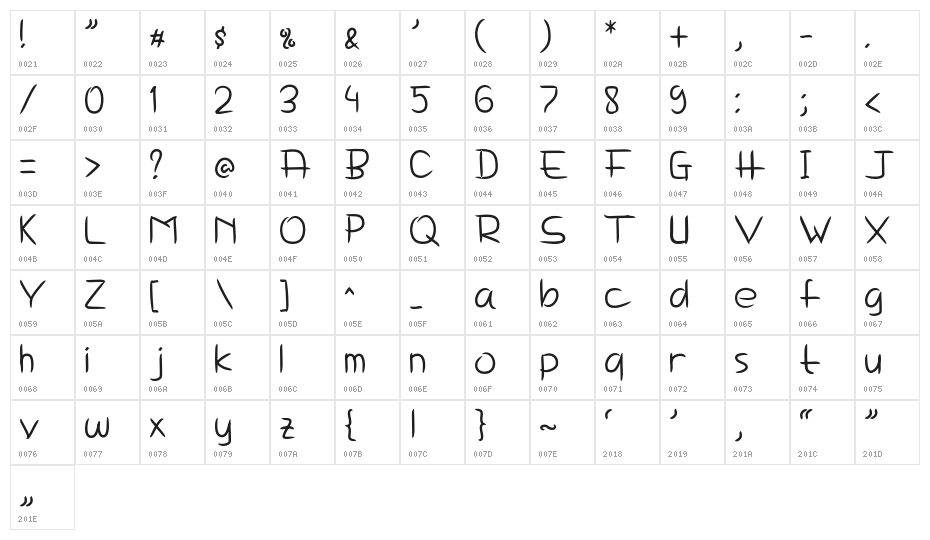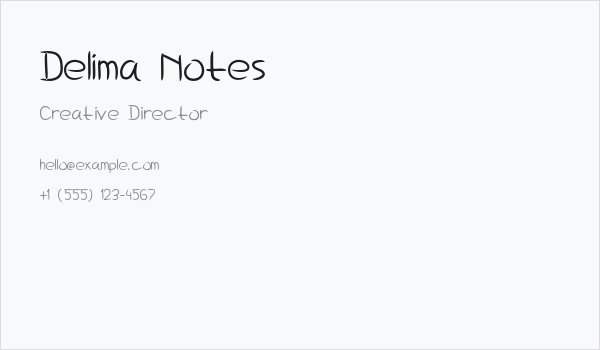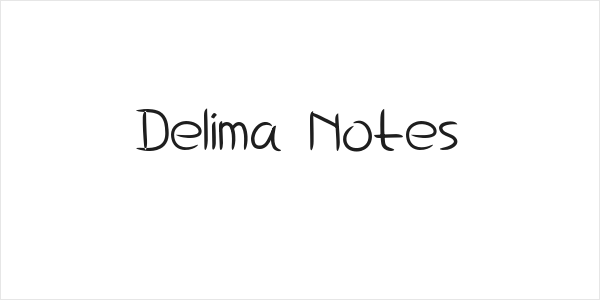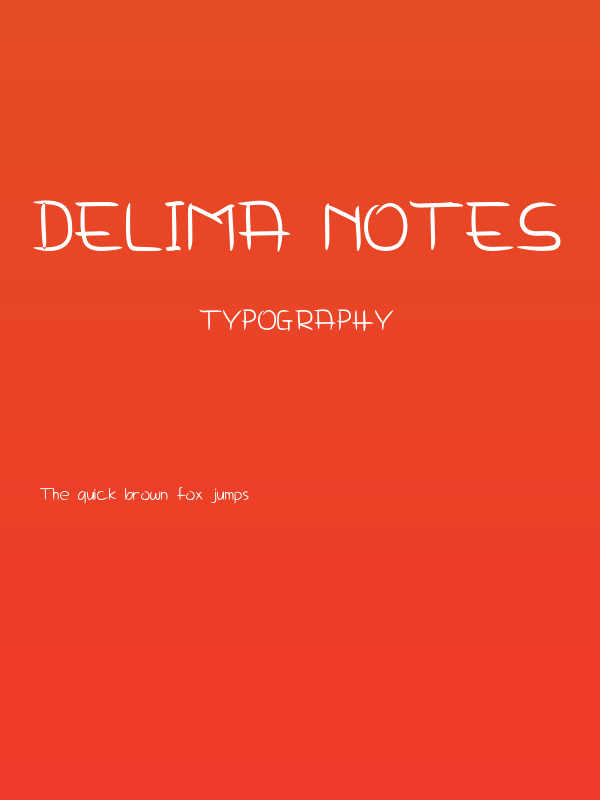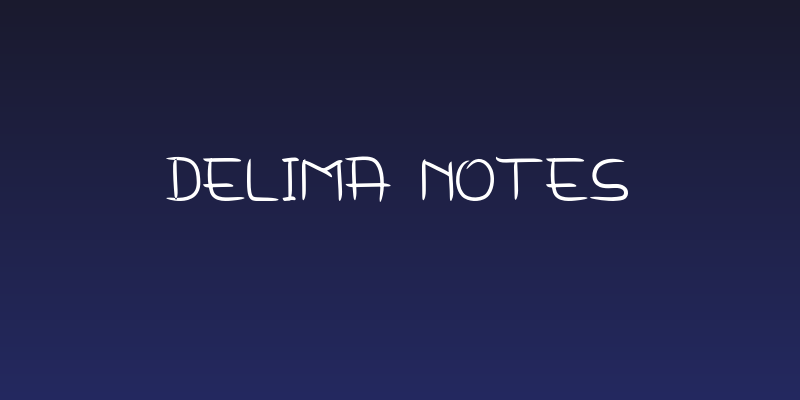
Delima Notes Font
Delima Notes Description
This font features a playful and casual handwritten style, characterized by its smooth curves and slightly irregular strokes. The letters are rounded and have a friendly, approachable appearance, making them suitable for informal and creative projects. The uppercase letters maintain a consistent height, while the lowercase letters exhibit a slight variation in size, adding to the font's charm. The numerals are clear and easy to read, with a similar playful style. Special characters are included, maintaining the same whimsical aesthetic. Overall, this font exudes a sense of fun and creativity, perfect for projects that require a personal touch.
Overall StyleCasual
Use CaseHeadlines, Informal text, Creative projects
Proposed ProjectsIdeal for greeting cards, children's books, personal blogs, and creative branding.